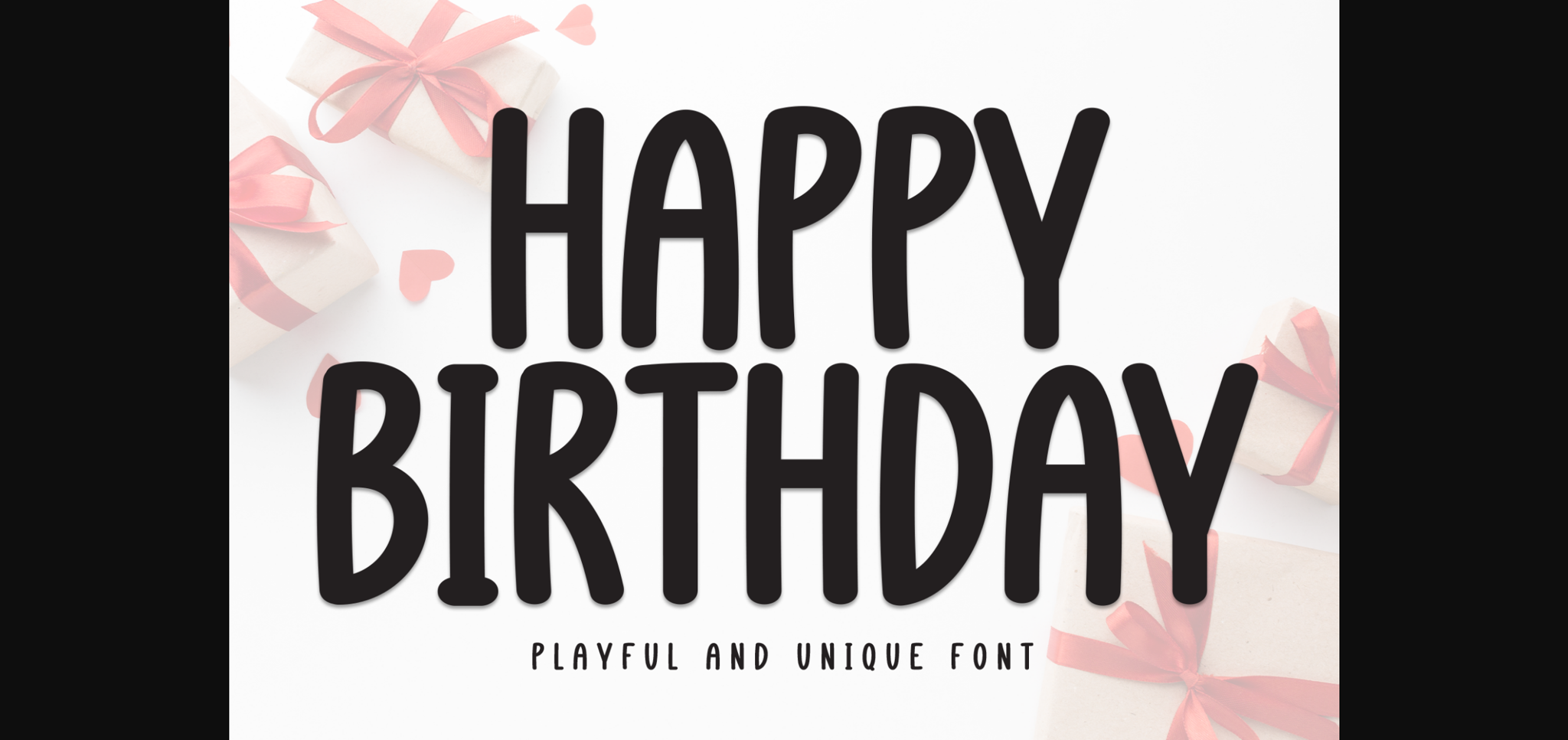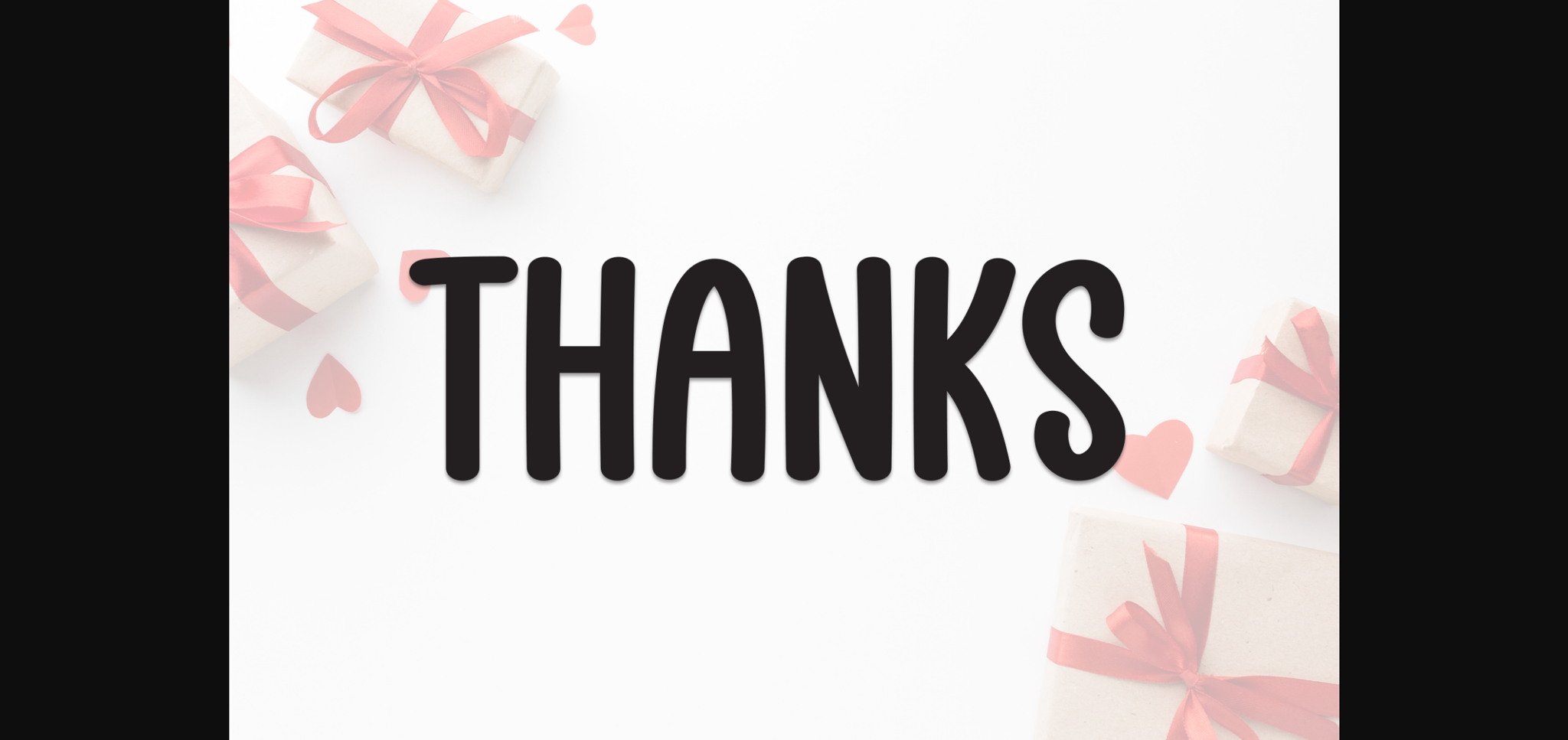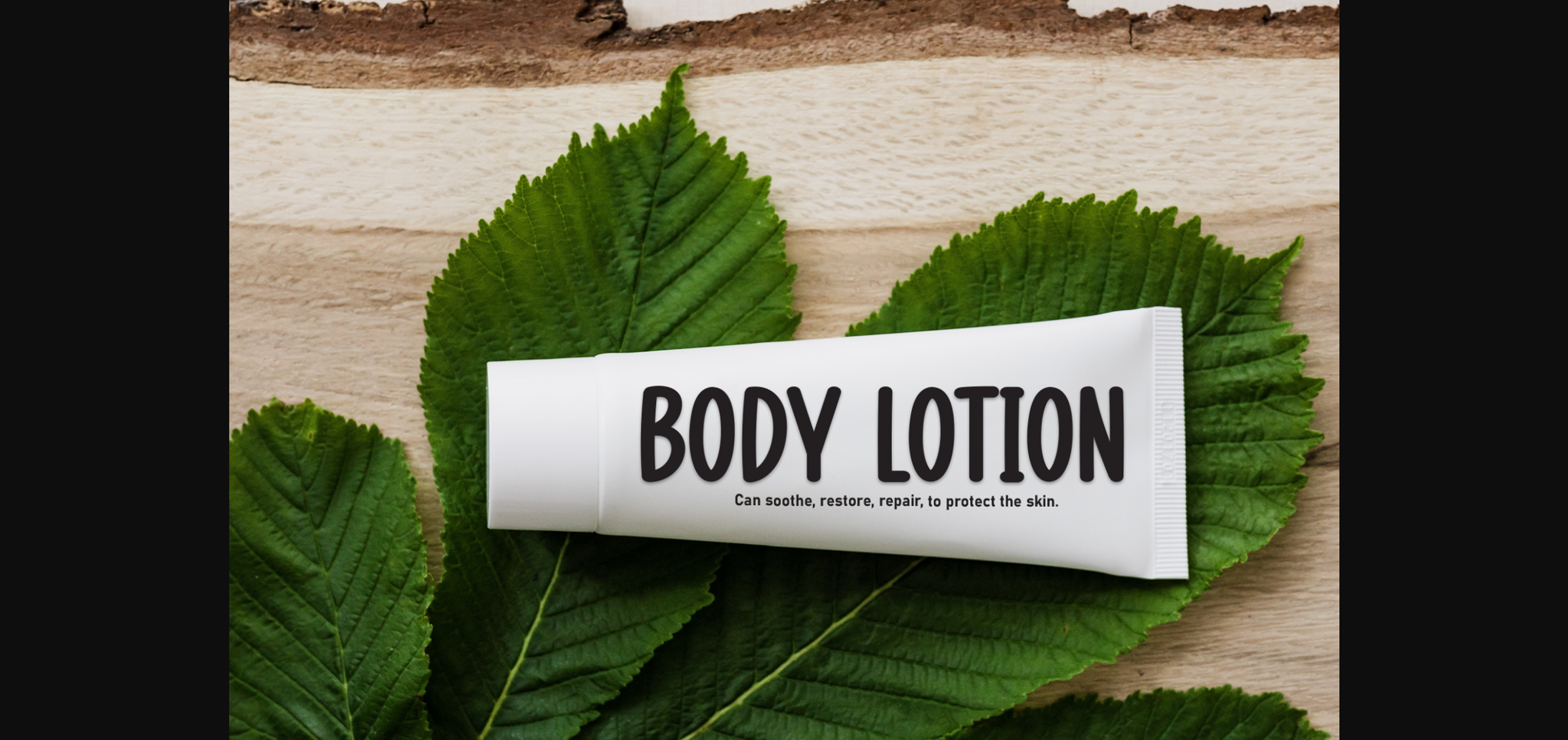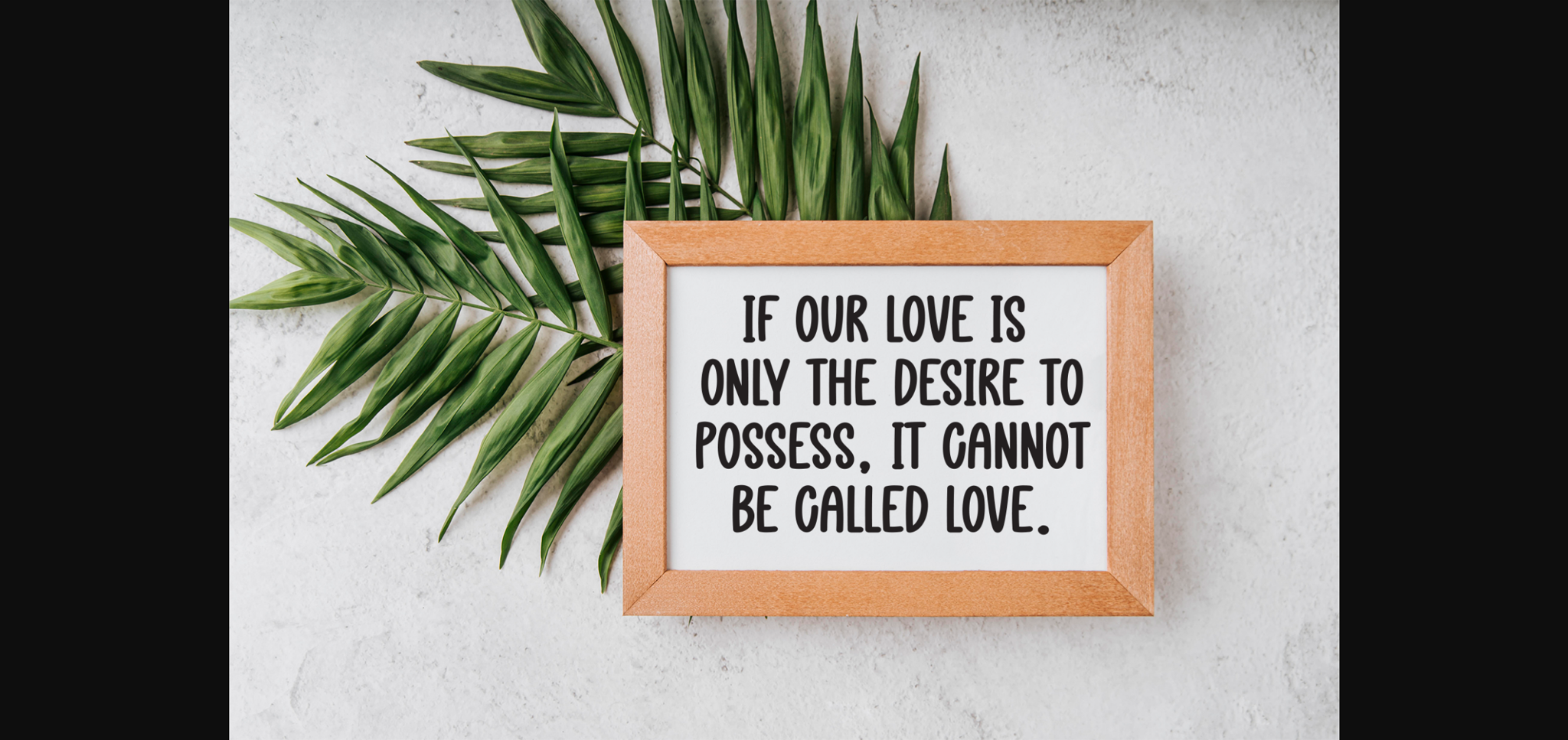
About Happy Birthday Font
Happy Birthday is a fun and versatile sans-serif font. Whether you’re using it for crafting, digital designing, presentations, or greeting card making, it’s perfect!